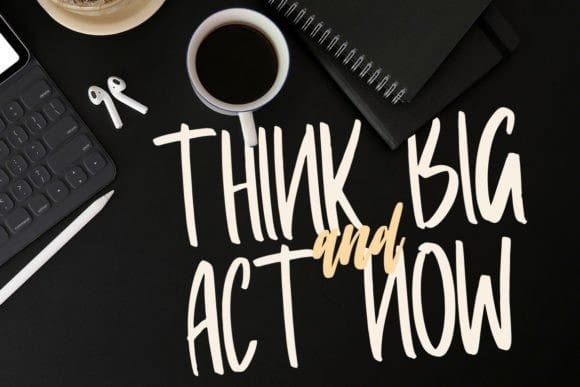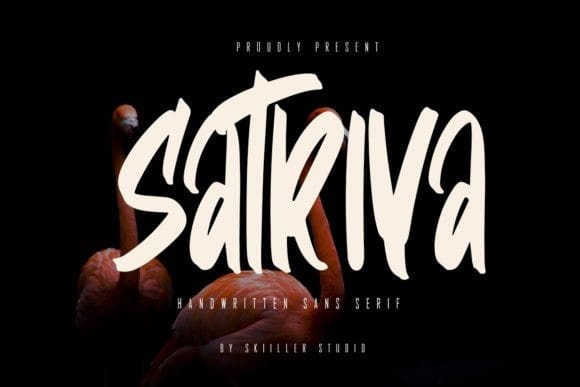
Satriya Font
Satriya Font is a unique, elegant, and bold handwritten font. It looks beautiful on a variety of designs requiring a personalized style.